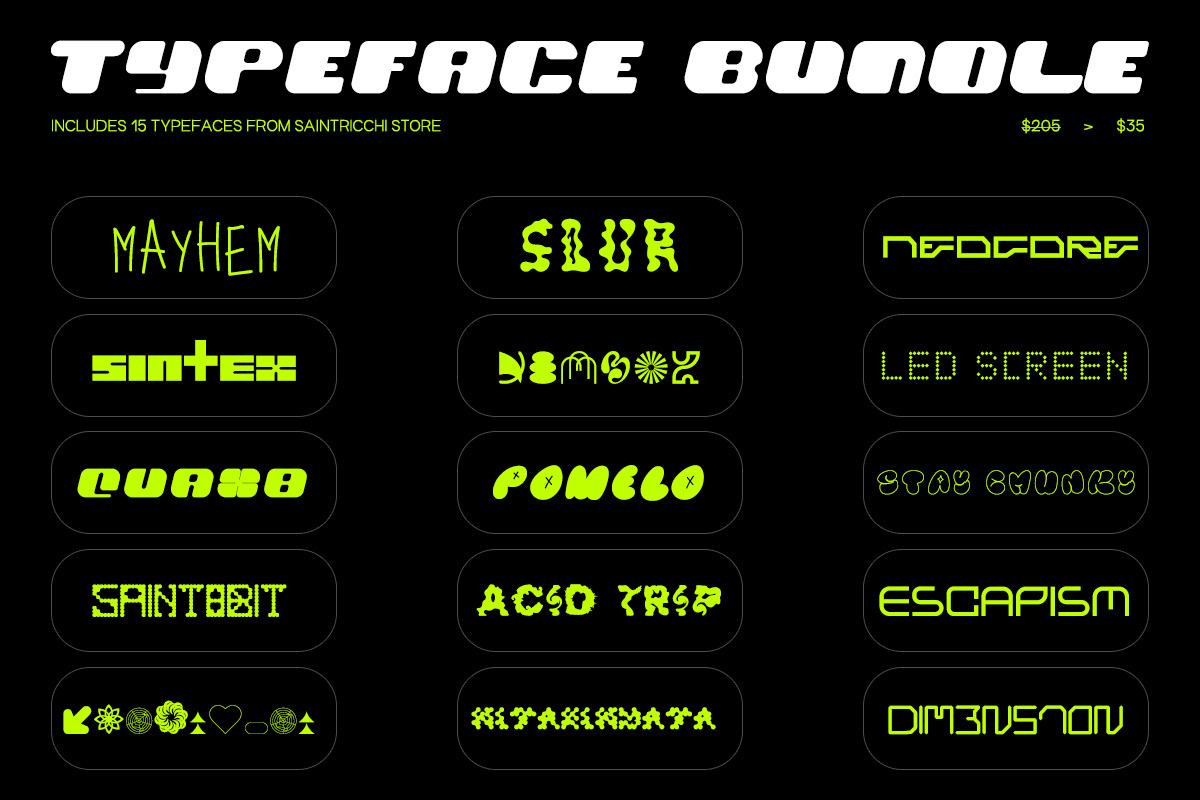
Typeface Bundle – Display Fonts Free Download is a bold and eye-catching collection of display typefaces designed to make a statement. Ideal for posters, branding, headlines, social media graphics, and packaging, this bundle gives you a range of unique styles to elevate your visual storytelling.
From vintage-inspired letterforms to modern geometric shapes, Typeface Bundle – Display Fonts Free Download provides versatile options for designers who want to stand out. Each font in the bundle is crafted for maximum impact, allowing you to create memorable designs across both print and digital formats. Try them out in your next mockup to explore their full potential—then upgrade to a commercial license when you're ready to launch with confidence.